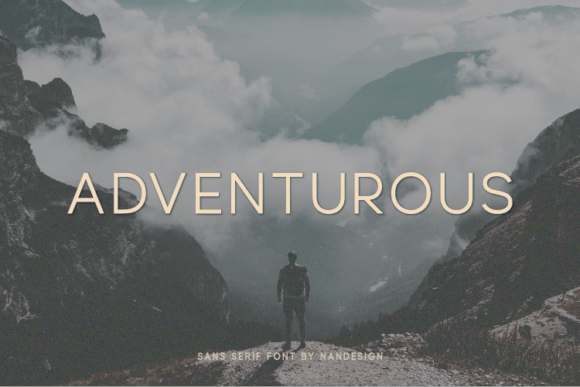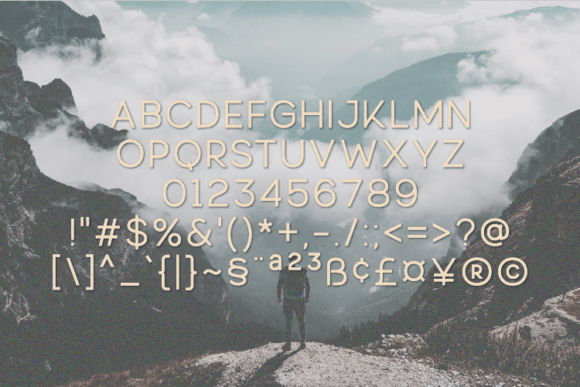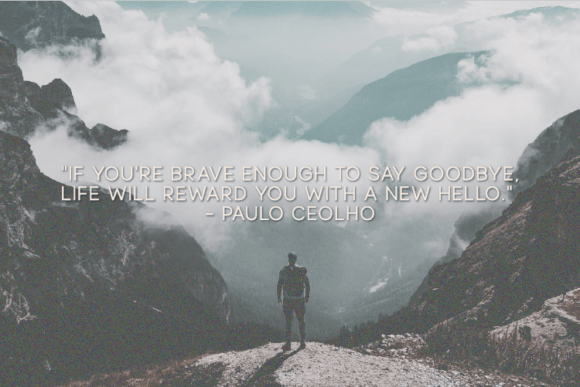
Unleash Your Creativity with Adventurous Font: The Ultimate Sans Serif Companion
Are you tired of using the same old fonts for your design projects? Look no further! Introducing Adventurous Font, a stunning sans serif typeface designed to elevate your creative endeavors. With its clean lines, modern aesthetic, and versatility, Adventurous Font is the perfect companion for any project you’re working on.
Endless Possibilities with Adventurous Font
Adventurous Font is a highly versatile typeface that can be used to create a wide range of design elements, including:
- Beautiful Headings: Add a touch of sophistication to your headings with Adventurous Font’s clean and modern design.
- Gorgeous Invitations: Create stunning invitations for special occasions, such as weddings, birthday parties, and baby showers.
- Stunning Logos: Use Adventurous Font to create unique and memorable logos for your brand or business.
- Save the Dates: Design eye-catching save the date cards that will get your guests excited for your special event.
- Weddings and More: Perfect for wedding planners, designers, and crafters, Adventurous Font can be used to create beautiful wedding stationery, decorations, and more.
Why Choose Adventurous Font?
So, what sets Adventurous Font apart from other typefaces? Here are just a few reasons why designers and crafters love working with this font:
- Unique and Modern Design: Adventurous Font boasts a fresh and modern aesthetic that’s sure to make your designs stand out.
- Highly Versatile: With its clean lines and simple design, Adventurous Font can be used for a wide range of projects, from elegant headings to bold logos.
- Easy to Read: The sans serif design of Adventurous Font makes it easy to read, even at small sizes.
- Perfect for Digital and Print: Whether you’re designing for digital or print, Adventurous Font is optimized for both, ensuring that your designs look great no matter where they’re displayed.
Tips for Using Adventurous Font
To get the most out of Adventurous Font, here are a few tips to keep in mind:
- Experiment with Sizes and Colors: Don’t be afraid to try out different sizes and colors to see what works best for your design.
- Pair with Other Fonts: Adventurous Font pairs well with a variety of other fonts, so feel free to experiment with different combinations to create a unique look.
- Use for Headings and Titles: Adventurous Font is perfect for headings and titles, so use it to add a touch of elegance to your designs.
In conclusion, Adventurous Font is a stunning sans serif typeface that’s perfect for designers and crafters looking to add a touch of elegance and sophistication to their projects. With its clean lines, modern aesthetic, and versatility, Adventurous Font is sure to become a go-to font in your design arsenal. So why wait? Download Adventurous Font today and start creating beautiful headings, gorgeous invitations, stunning logos, and more!
Whether you’re a seasoned designer or a crafty DIY enthusiast, Adventurous Font is the perfect companion for any project. So go ahead, get adventurous, and see what amazing designs you can create with this incredible font!